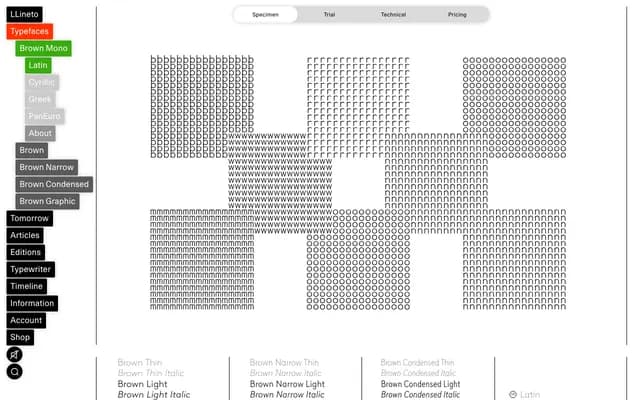
LL Brown Mono
A fixed-width companion to LL Brown, extending Aurèle Sack's Johnston Sans and Super Grotesk synthesis into a form evoking IBM daisywheel typewriters.
Designed in 2020, LL Brown Mono carries the geometric character of LL Brown into two weights with matching italics, covering Latin, Cyrillic and Greek. Lineto describe the intent as creating monospaced fonts that are both beautiful and functional, as though LL Brown had an earlier life on an electric typewriter. The result is a rare mono cut with genuine typographic pedigree, well suited to code, editorial and interface contexts where warmth and geometric clarity matter.
A monospaced variant of LL Brown, a geometric sans serif rooted in Johnston Sans and Super Grotesk; the mono cuts carry the same geometric construction into fixed-width spacing evoking daisywheel typewriter output.